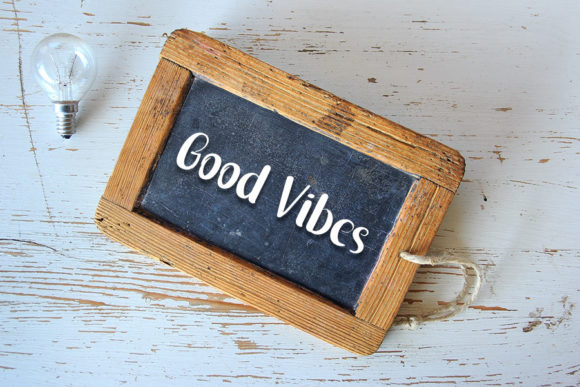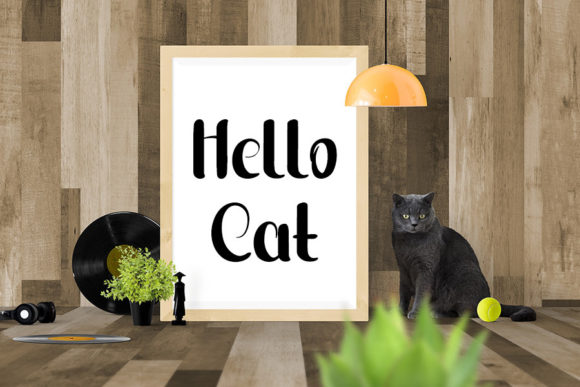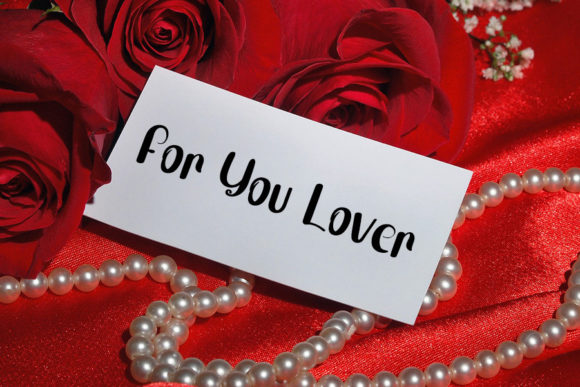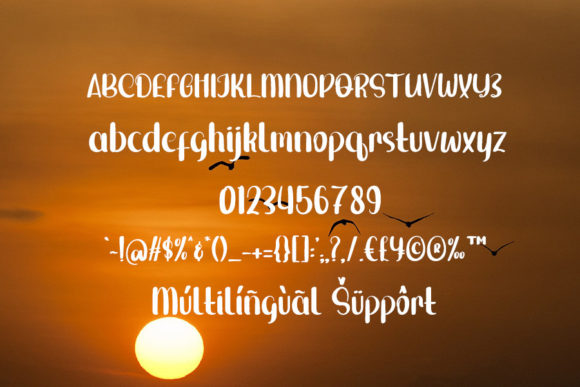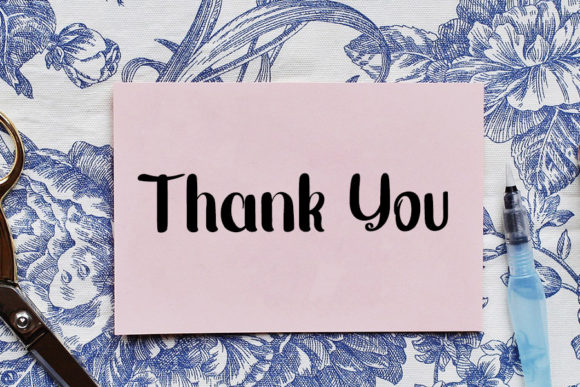
Hello Christian Font: Elevate Your Designs with a Touch of Timeless Elegance
In the world of typography, fonts play a crucial role in conveying the tone and personality of a design. For crafters and designers looking to add a touch of elegance and playfulness to their projects, the Hello Christian font is an excellent choice. This article will delve into the features and benefits of the Hello Christian font, exploring how it can enhance the beauty of your designs.
What is Hello Christian Font?
Hello Christian is a playful and smart handwritten font that draws inspiration from timeless calligraphy. With its impeccable form, this font strikes the perfect balance between elegance and playfulness. Designed to be versatile and varied, Hello Christian is suitable for a wide range of projects, from crafting and designing to digital and print media.
Key Features of Hello Christian Font
- Playful and Smart Design: The Hello Christian font boasts a unique and charming design that adds a touch of personality to any project.
- Handwritten Style: With its handwritten style, this font brings a sense of warmth and authenticity to your designs.
- Timeless Calligraphy Inspiration: Inspired by classic calligraphy, Hello Christian exudes a sense of elegance and sophistication.
- Balanced and Varied: The font’s balanced and varied design ensures that it can be used in a variety of contexts, from titles and headings to body text.
Benefits of Using Hello Christian Font
The Hello Christian font offers numerous benefits for designers and crafters, including:
- Enhanced Visual Appeal: With its unique and elegant design, Hello Christian can elevate the visual appeal of your projects.
- Improved Readability: The font’s clear and balanced design ensures that your text is easy to read, making it perfect for body text and headings.
- Versatility: Hello Christian can be used in a wide range of projects, from digital media and advertising to crafting and printing.
- Time-Saving: With its varied design, you can use Hello Christian to create a cohesive look across multiple projects, saving you time and effort.
Who Can Benefit from Hello Christian Font?
The Hello Christian font is perfect for:
- Graphic Designers: Looking for a unique and elegant font to add to their designs.
- Crafters: Creating handmade cards, gift tags, and other paper crafts.
- Digital Artists: Seeking a font that can add a touch of personality to their digital art.
- Marketers and Advertisers: Needing a font that can help their brand stand out.
Tips for Using Hello Christian Font
To get the most out of the Hello Christian font, consider the following tips:
- Pair with Other Fonts: Experiment with pairing Hello Christian with other fonts to create a unique and visually appealing design.
- Use in Headings and Titles: Take advantage of the font’s elegant design by using it in headings and titles.
The Hello Christian font is a versatile and elegant addition to any design project. With its playful and smart design, timeless calligraphy inspiration, and balanced and varied style, this font is perfect for designers and crafters looking to elevate their designs. Whether you’re working on a digital project, creating handmade crafts, or advertising your brand, Hello Christian is an excellent choice.